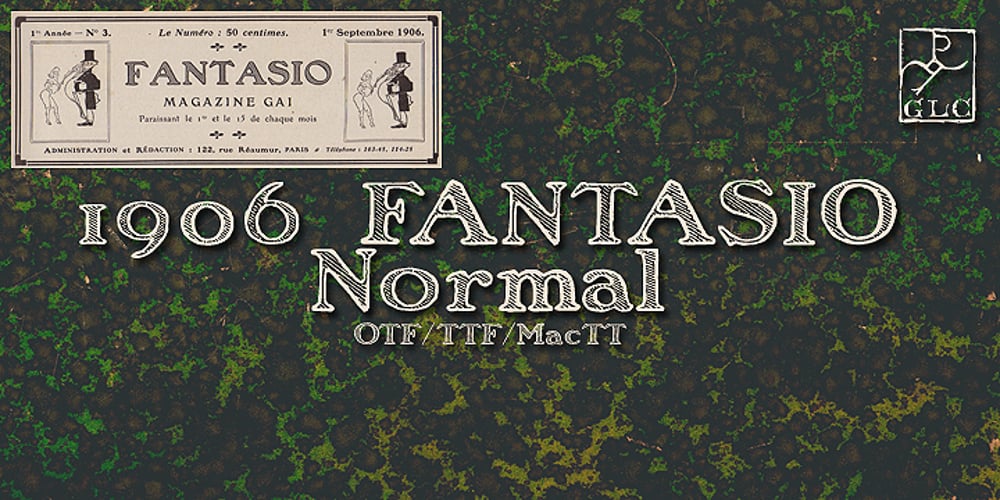
1906 Fantasio Font Family was designed by published by GLC. 1906 Fantasio contains 1 styles and family package options. We have created this font inspired from the hatched one used for the inner title and many headlines by the old French popular “cheerful” satirical magazine Fantasio (1906-1948). This family may be used together with 1906 French News, 1906 Titrage, 1906 Fanatasio Auriol and 1890 Notice.